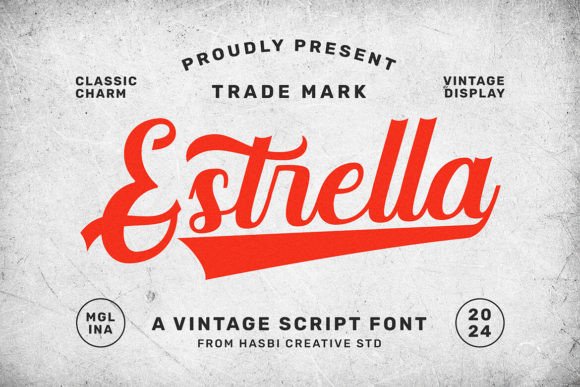
Introducing Estrella Font: A Timeless Vintage Script for Elegant Designs
Are you looking for a font that adds a touch of classic sophistication to your design projects? Look no further than Estrella Font, a beautifully crafted vintage script font inspired by the art of traditional calligraphy. With its flowing lines, intricate details, and elegant aesthetic, Estrella Font is perfect for designers and crafters seeking to create stunning logos, invitations, and other design projects that exude a sense of timeless charm.
The Inspiration Behind Estrella Font
Estrella Font is a masterful recreation of classic calligraphy, with each letterform carefully crafted to evoke the feeling of vintage elegance. The font’s design is rooted in traditional calligraphic techniques, with flowing lines and delicate flourishes that give it a sense of movement and sophistication. Whether you’re creating a logo, invitation, or other design project, Estrella Font is sure to add a touch of refinement and poise.
Key Features of Estrella Font
- Flowing Lines and Intricate Details: Estrella Font features beautifully crafted lines and intricate details that give it a sense of elegance and sophistication.
- Vintage Aesthetic: With its classic calligraphic inspiration, Estrella Font is perfect for designers seeking to create vintage-inspired designs.
- Timeless Charm: Unlike trendy fonts that quickly go out of style, Estrella Font’s timeless aesthetic ensures that your designs will remain stylish for years to come.
- Elegant and Sophisticated: Estrella Font is perfect for creating designs that require a sense of refinement and poise, such as logos, invitations, and other high-end design projects.
Estrella Font is an excellent choice for designers and crafters seeking to add a touch of vintage elegance to their projects. Whether you’re creating:
- Elegant Logos: Estrella Font is perfect for creating sophisticated logos that make a lasting impression.
- Vintage Invitations: Add a touch of classic charm to your invitations with Estrella Font’s beautifully crafted script.
- Wedding Stationery: Estrella Font is an excellent choice for creating elegant wedding stationery, including wedding invitations, programs, and place cards.
- Branding and Packaging: Use Estrella Font to add a touch of sophistication to your branding and packaging designs.
Tips for Using Estrella Font
To get the most out of Estrella Font, here are a few tips to keep in mind:
- Use it as a Title Font: Estrella Font is perfect for use as a title font, adding a touch of elegance and sophistication to your designs.
- Pair it with a Simple Font: For body text, pair Estrella Font with a simple, easy-to-read font to create a striking contrast.
- Experiment with Colors and Textures: Estrella Font looks stunning in a variety of colors and textures, so don’t be afraid to experiment and find the perfect combination for your design.
| Font Name | Estrella Font |
| Author | Hasbi Creative |
Estrella Font is a beautifully crafted vintage script font that adds a touch of timeless elegance to any design. With its flowing lines, intricate details, and classic aesthetic, it’s perfect for designers and crafters seeking to create stunning logos, invitations, and other design projects. Whether you’re looking to add a touch of sophistication to your branding, packaging, or wedding stationery, Estrella Font is an excellent choice.